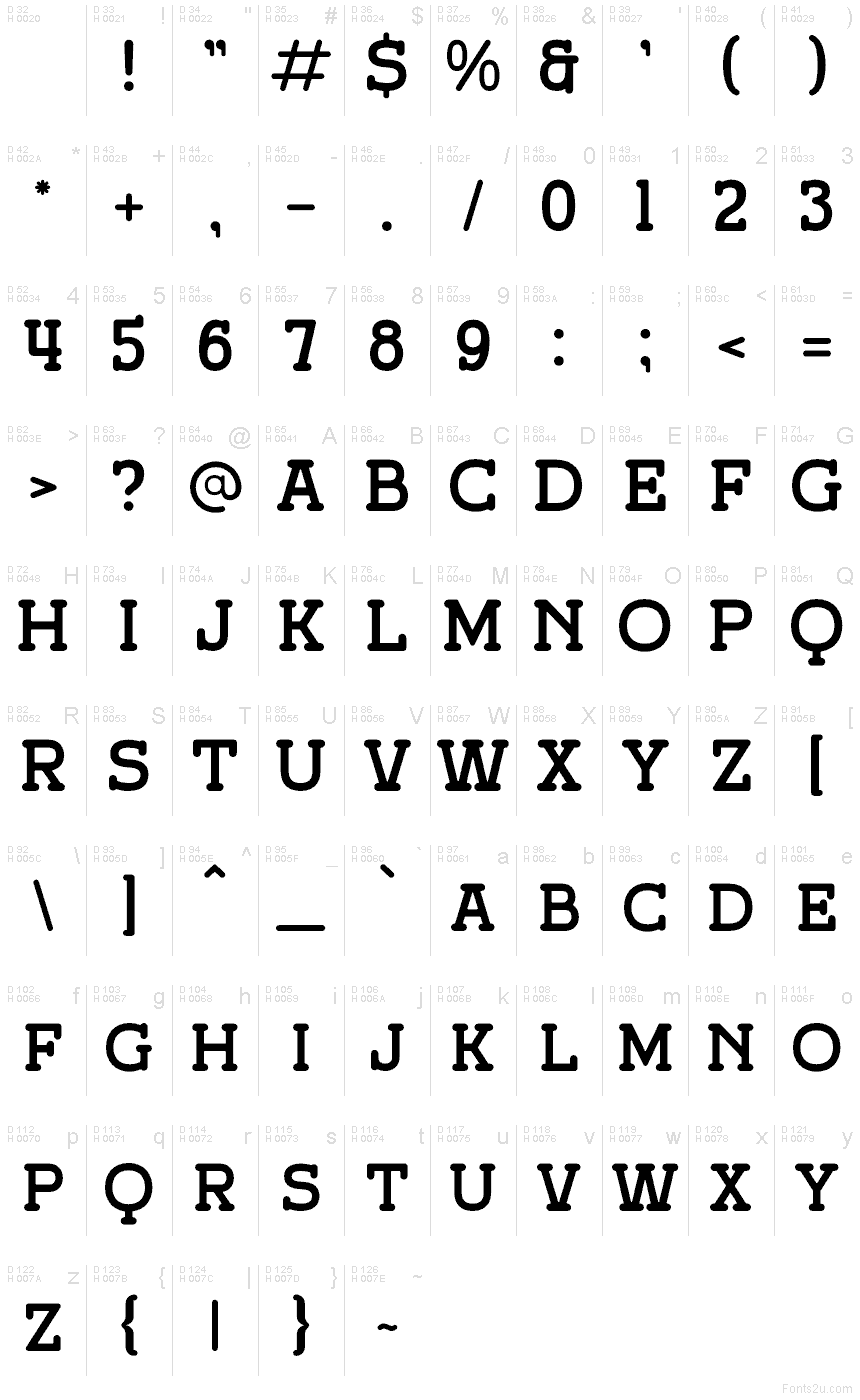
Broken Ranch
Broken Ranch font by Storytype Studio is a free serif typeface that channels the dust, timber, and ironwork of an old frontier town. Wide, sturdy letterforms and chunky slab-style endings give it a rugged, hand-hewn feel, while the tight spacing keeps words reading like a single branded mark. It’s bold and blocky yet surprisingly clean, like a freshly painted sign on weathered barn wood.
Using Broken Ranch, you can give instant Western attitude to logos, BBQ menus, whiskey labels, rodeo posters, merch graphics, and rustic signage. This free font thrives at large sizes where its heavy shapes and subtle curves can really show off. Pair Broken Ranch with a plain, modern sans serif for supporting text to keep your layouts grounded and easy to read.